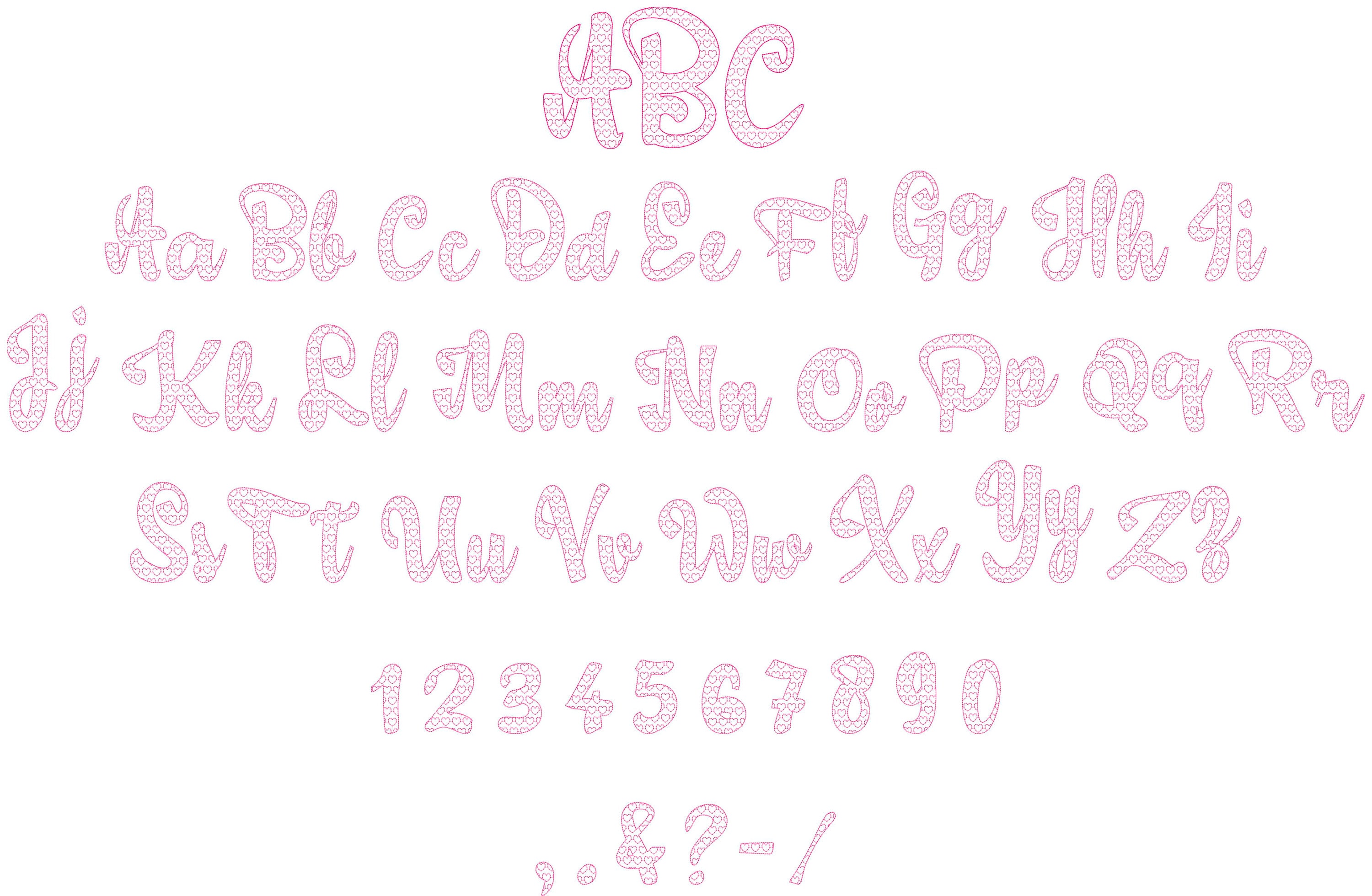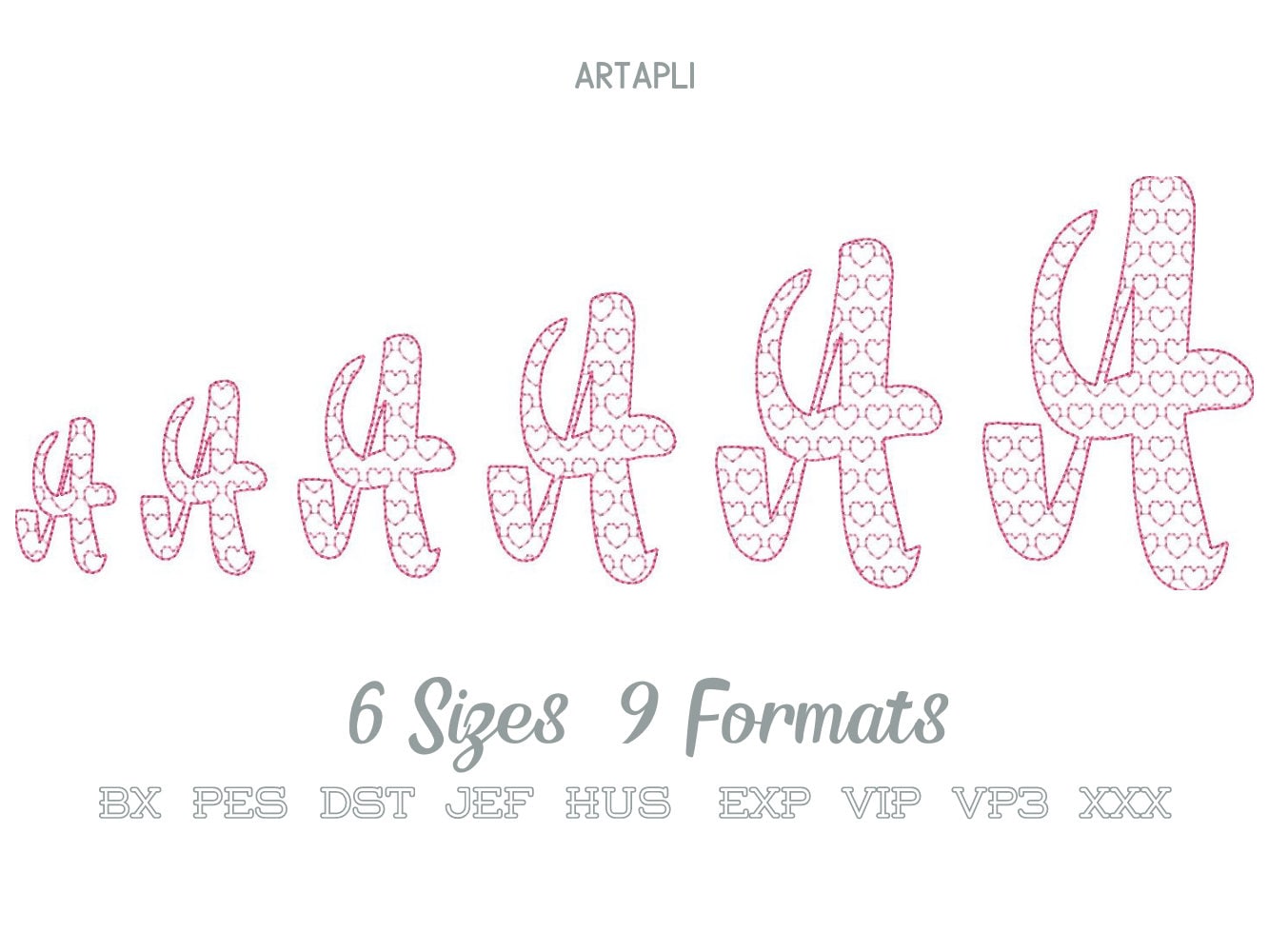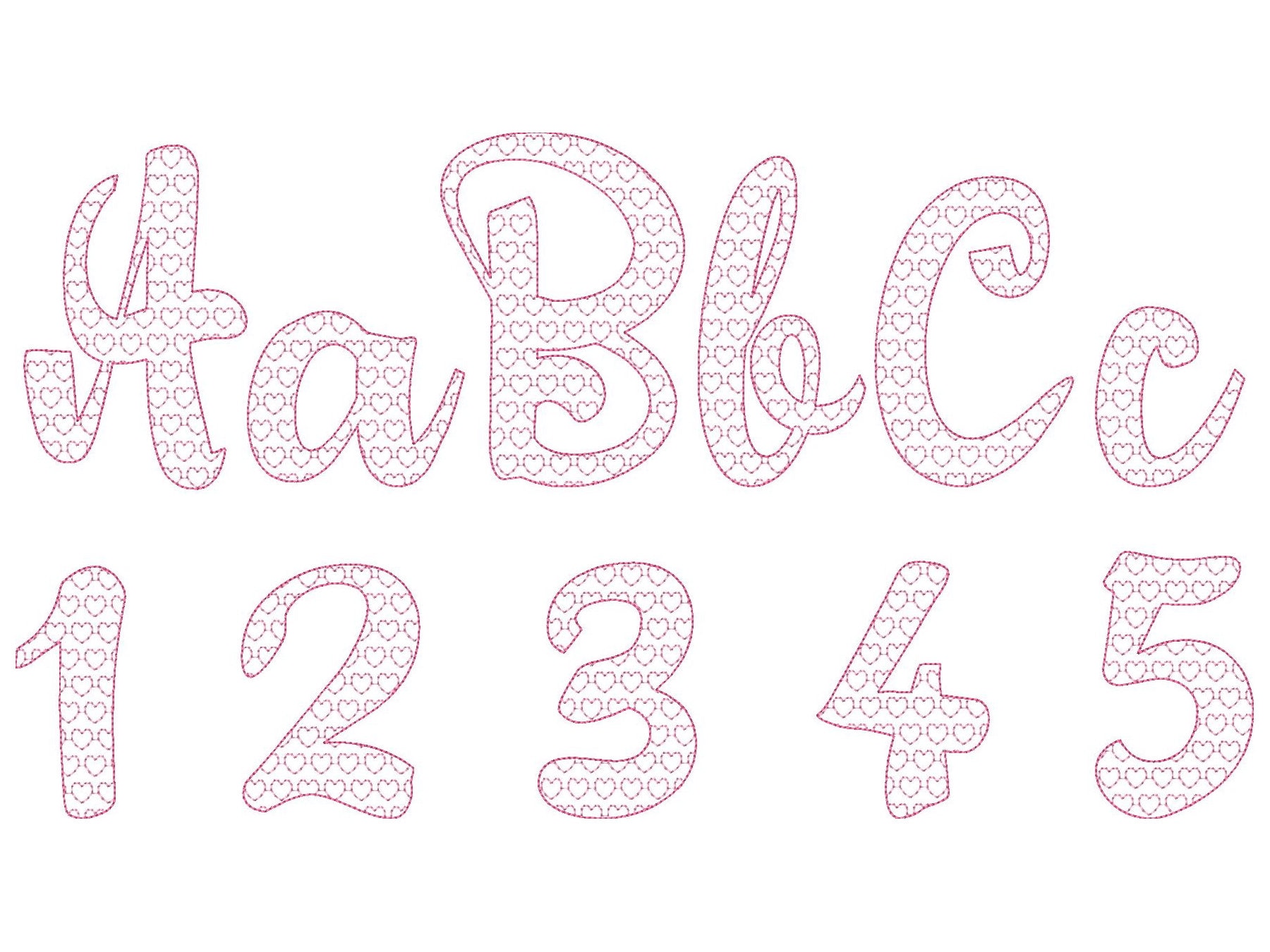
Heart Love hearted Font 2 two colors script cursive alphabet machine embroidery designs assorted sizes heart shape pattern kids name letters
The font is transparent and has light bean stitch heart shapes and an outline.
Included: uppercase and lowercase letters, numbers and punctuation & . , - ? / !